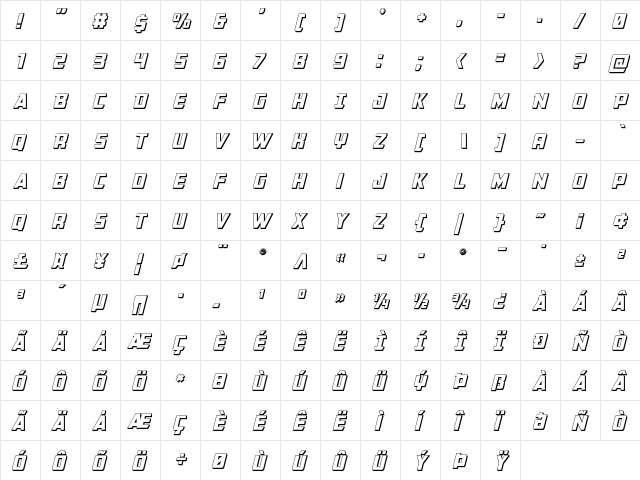
Buchanan 3D Italic Italic
Design Context for Buchanan 3D Italic Typeface
Buchanan 3D Italic is a composed and adaptable typeface that performs quietly and consistently across a wide range of design contexts. The slanted form adds forward momentum and visual energy.
Pro Tip: Use Buchanan 3D Italic for emphasis, pull quotes, and subheadings where its slanted energy can add rhythm to the layout.